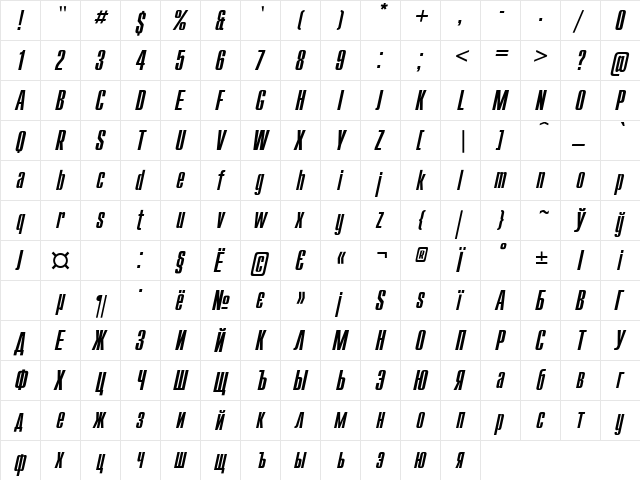
UkrainianCompact Italic
Design Context for UkrainianCompact Typeface
UkrainianCompact is a composed and adaptable typeface that performs quietly and consistently across a wide range of design contexts. The dynamic lean of this cut emphasises speed and emphasis in any layout. The condensed width makes it efficient for tight spaces without sacrificing legibility.
Pro Tip: Use UkrainianCompact for emphasis, pull quotes, and subheadings where its slanted energy can add rhythm to the layout.